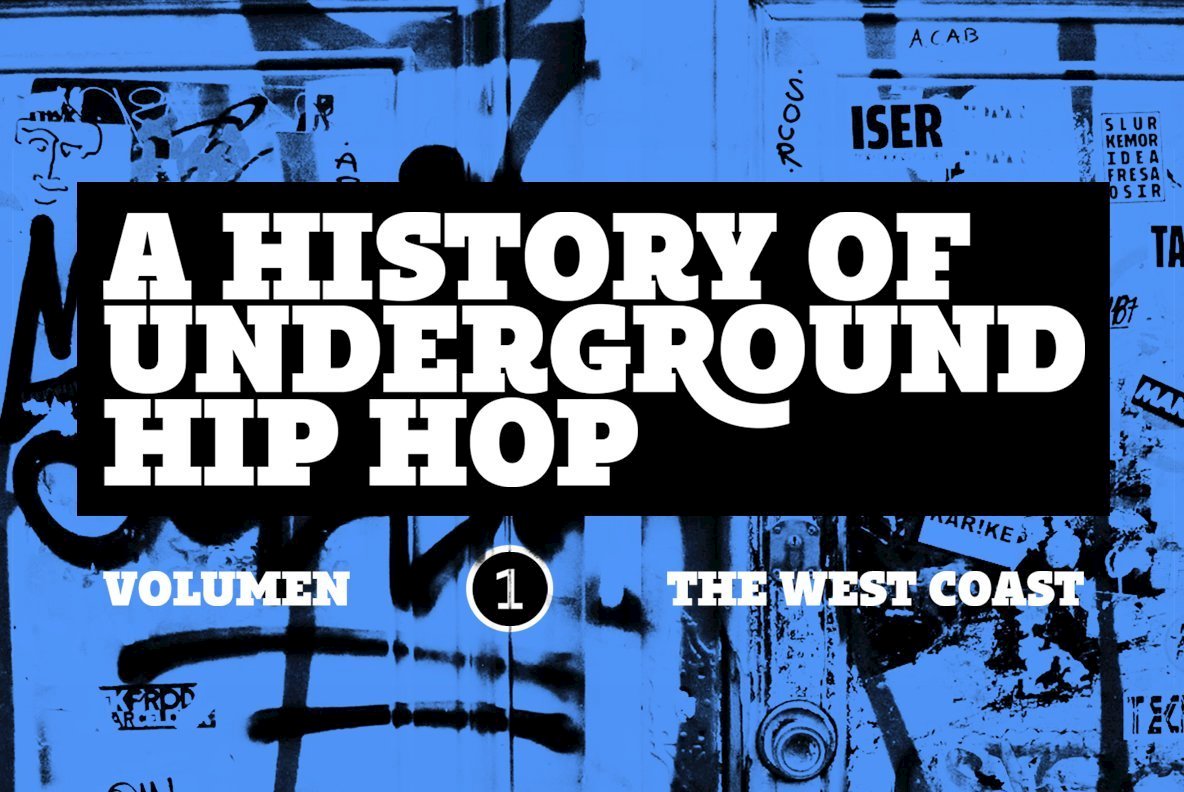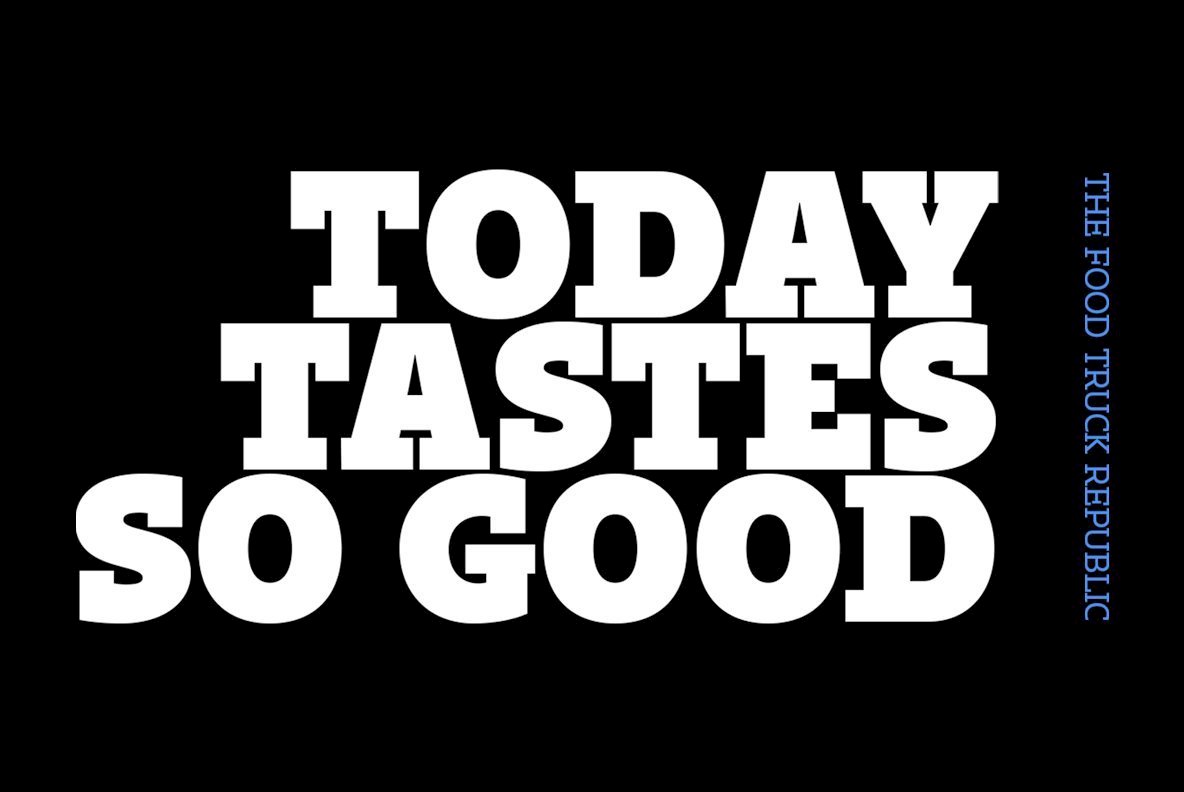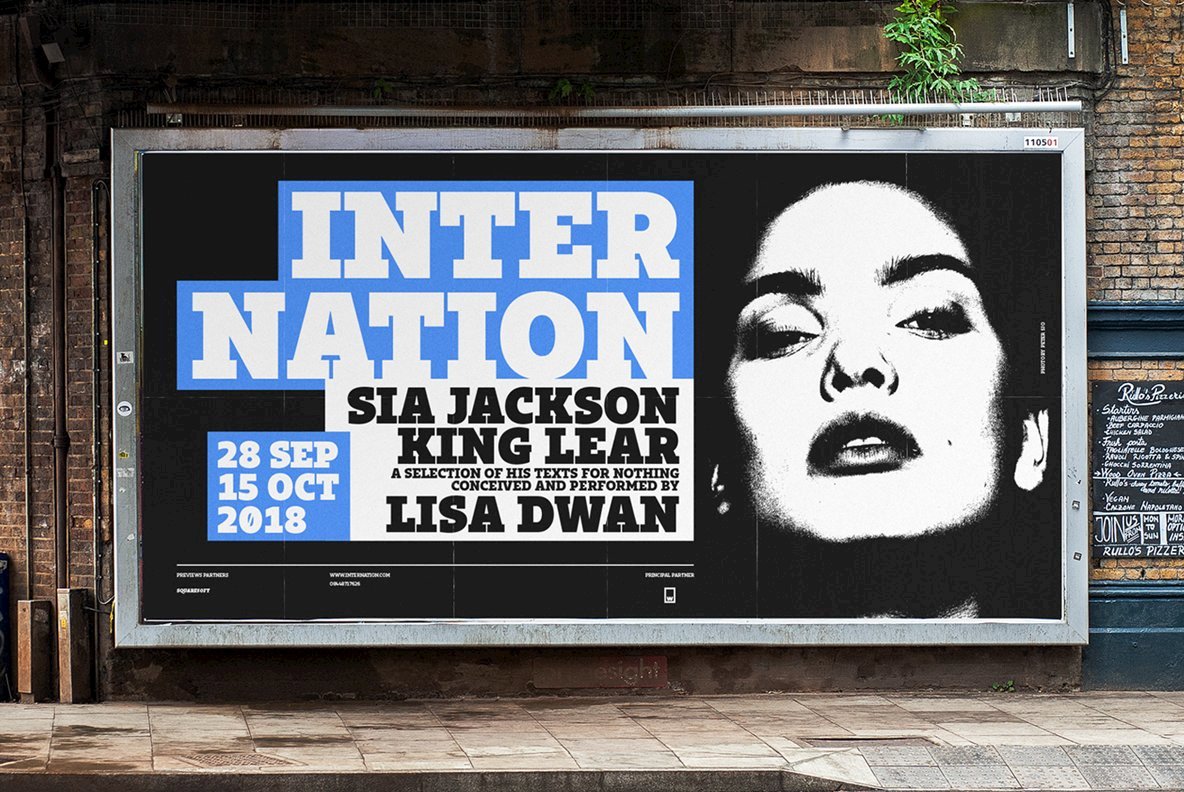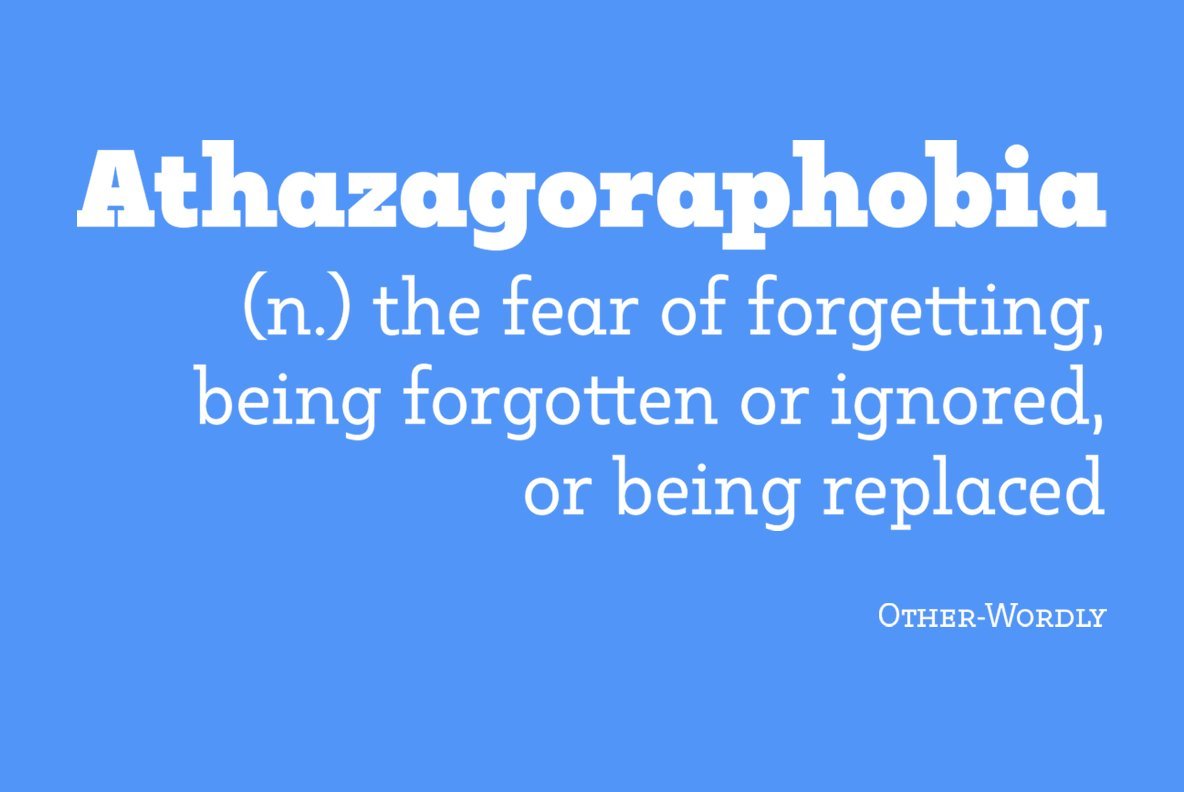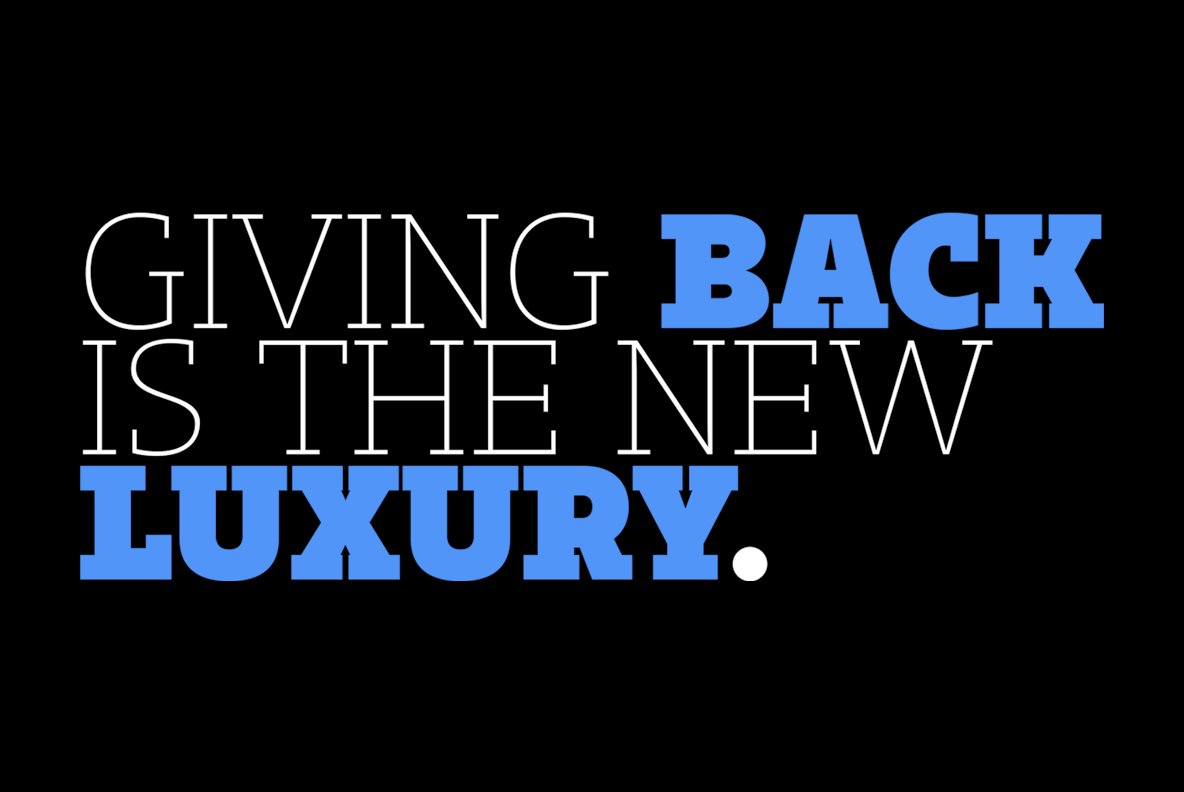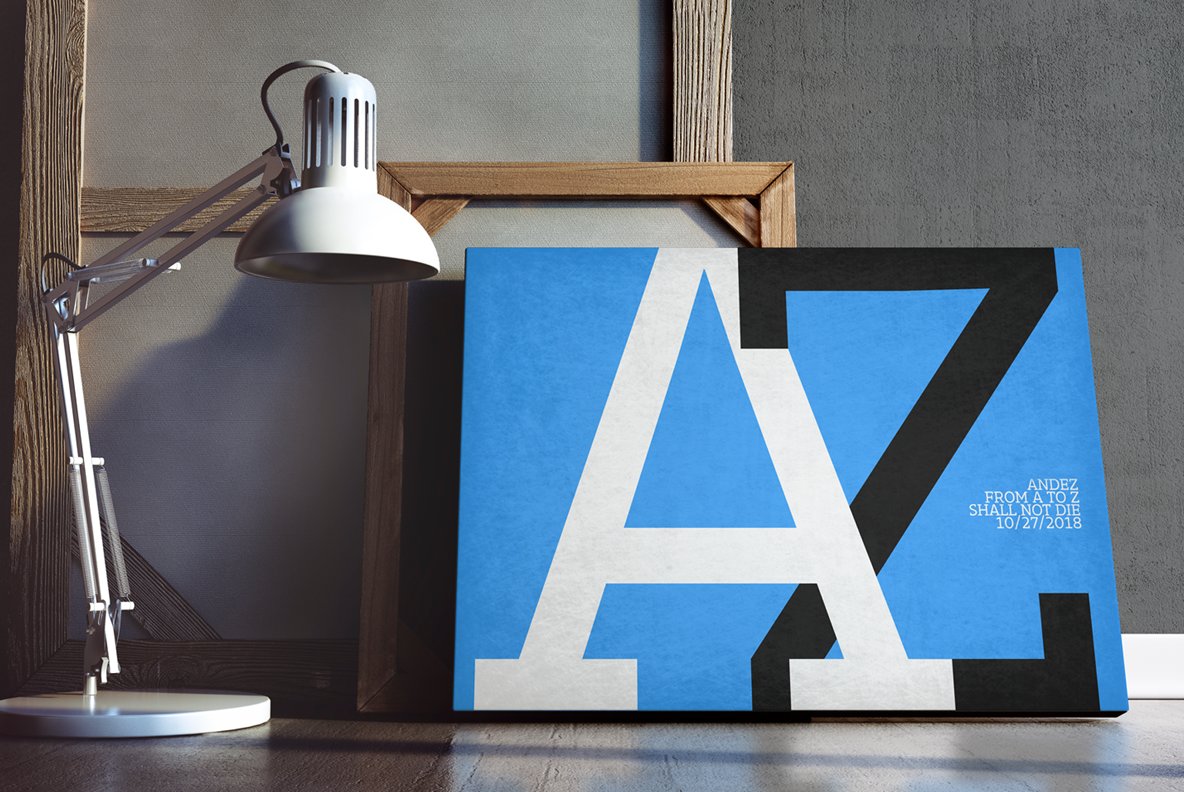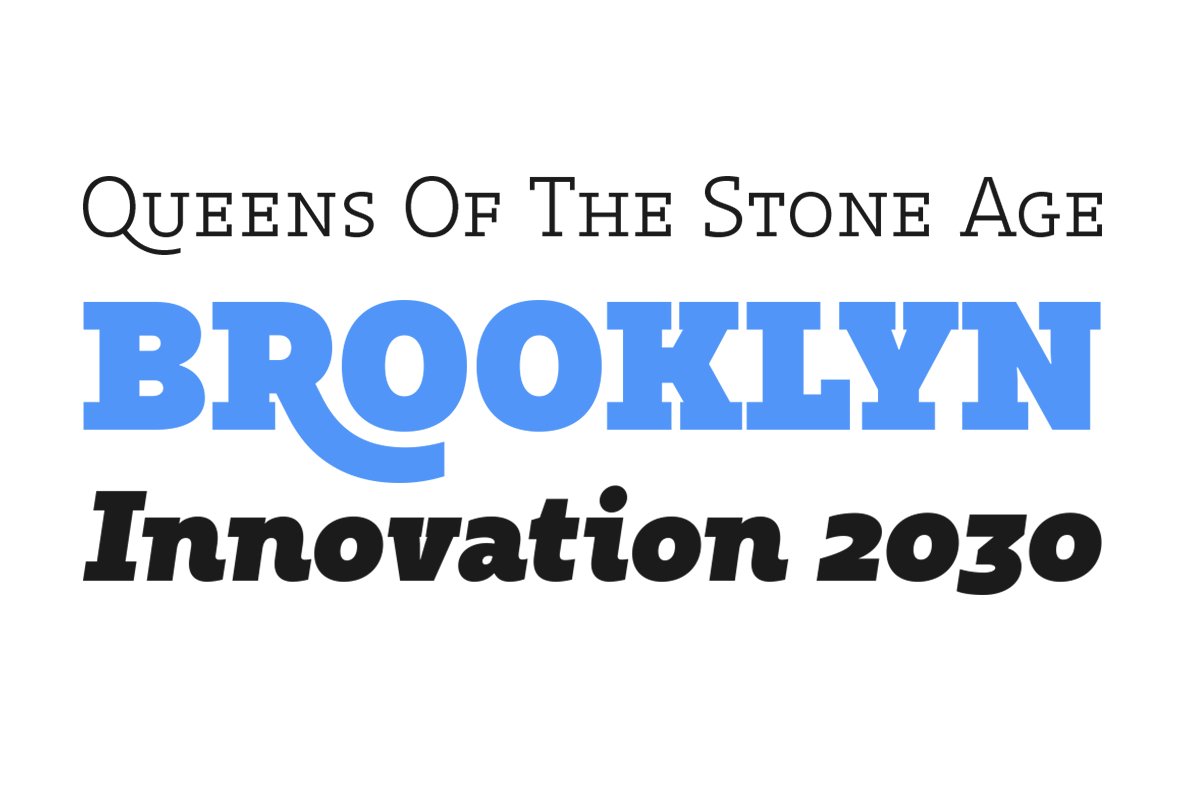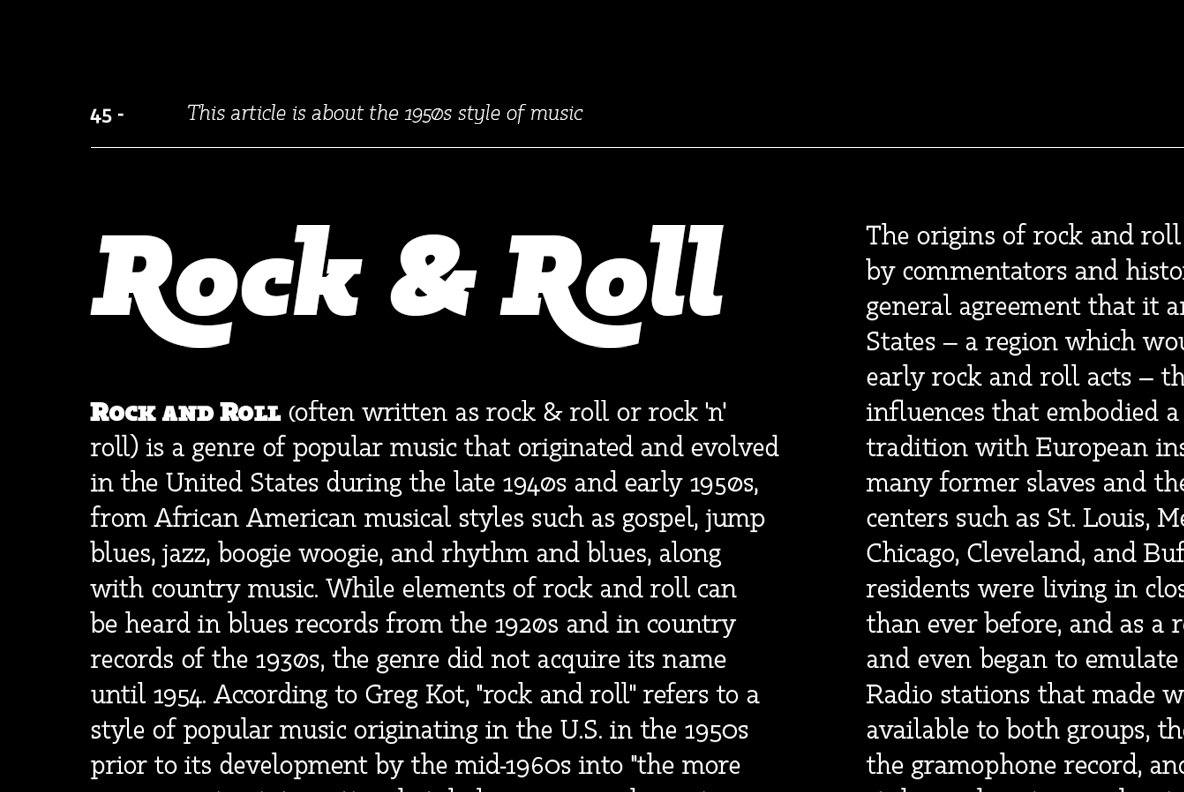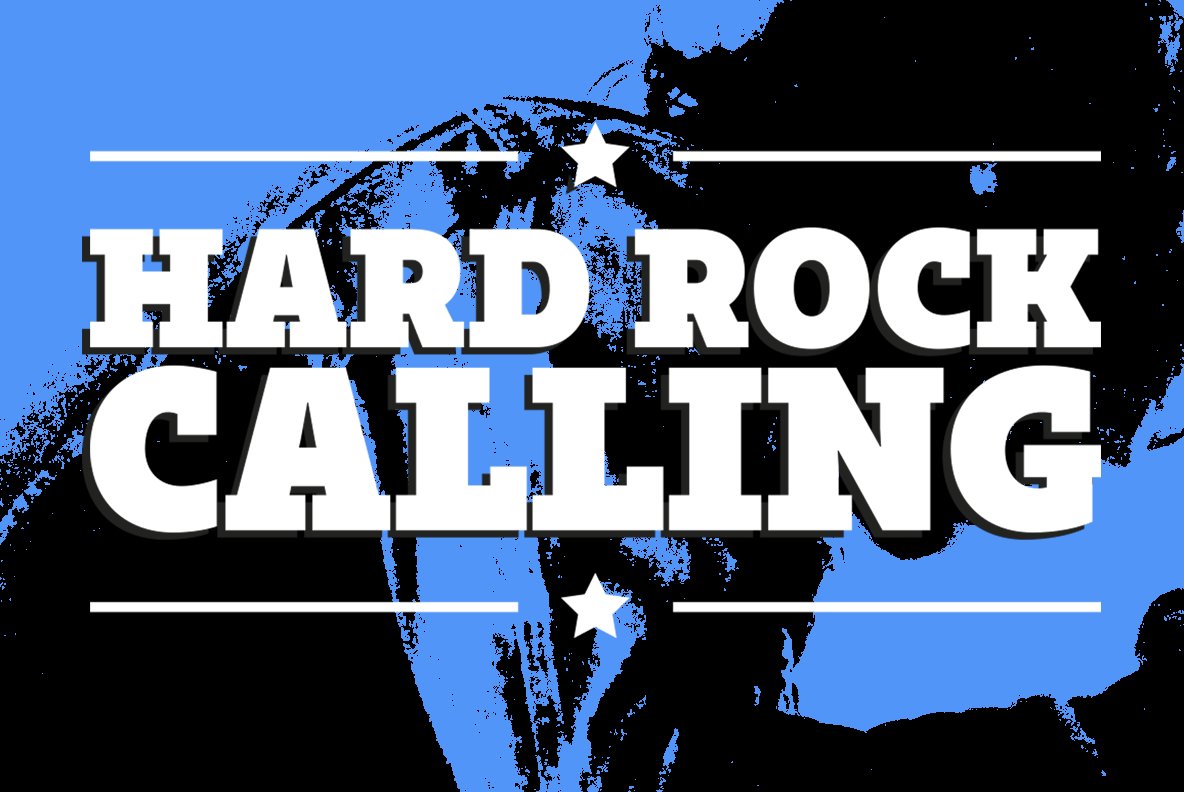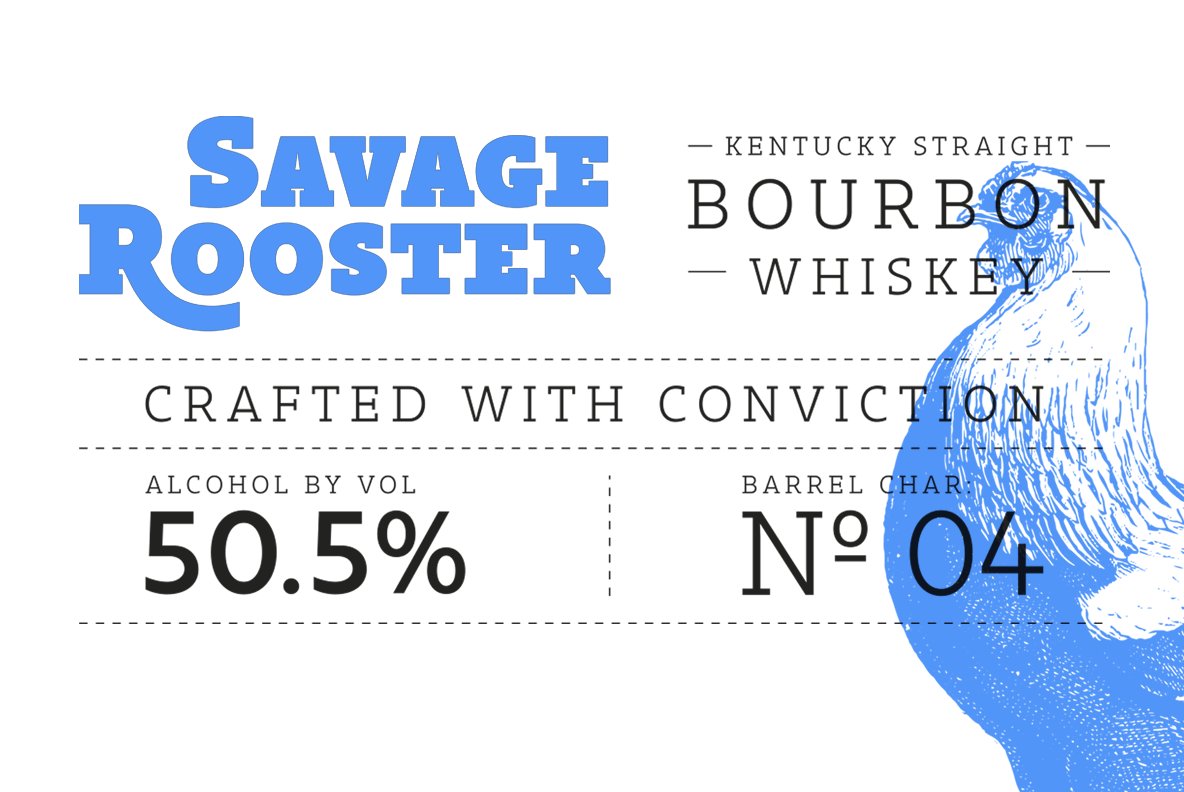
Kappa Vol.2 is the serif version of our popular Kappa. Just as Kappa sans, this font has a slight narrowed structure and a prominent ascender height, therefore this font is suitable for a large range of platforms. Moreover, due to its serif Kappa Vol.2’s level of legibility is more accurate, so when you use it alongside Kappa sans the results will be extremely effective.
Designed with powerful OpenType features in mind. Each weight includes alternate characters, ligatures, fractions, special numbers, arrows, extended language support, small caps and many more… Perfectly suited for graphic design and any display / text use. The 36 fonts are part of the larger Kappa super family.